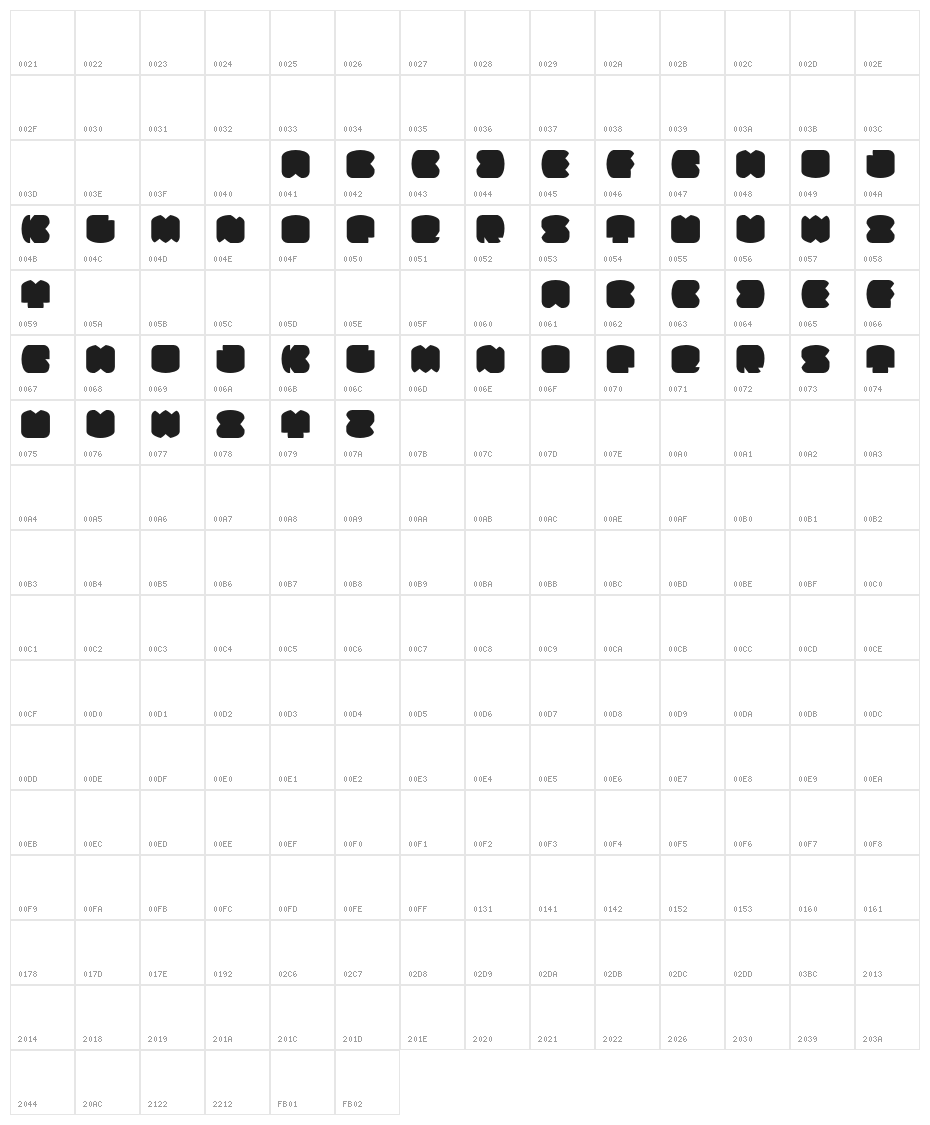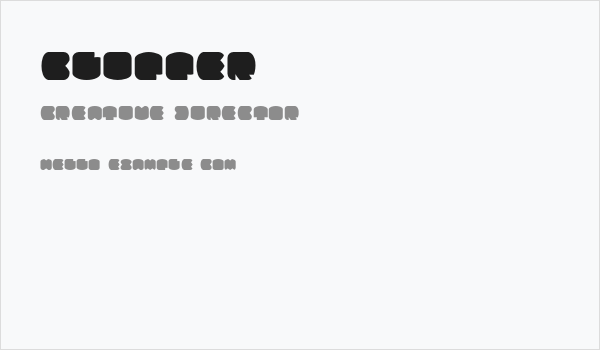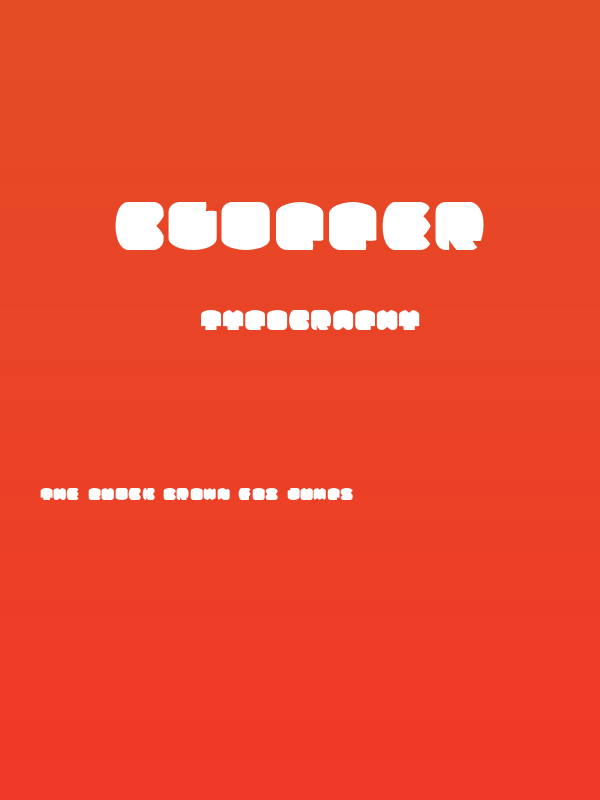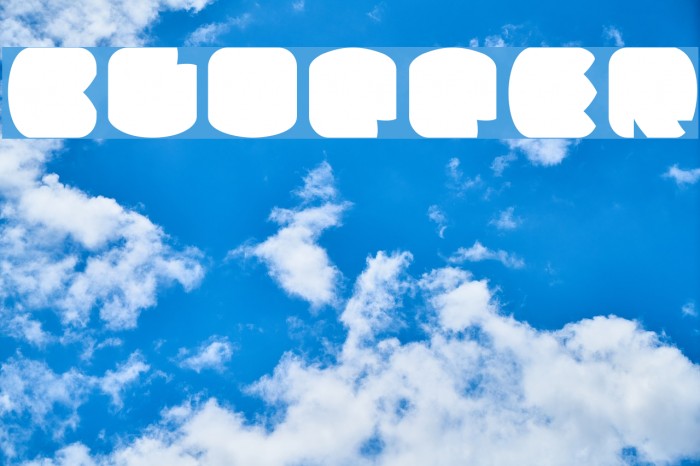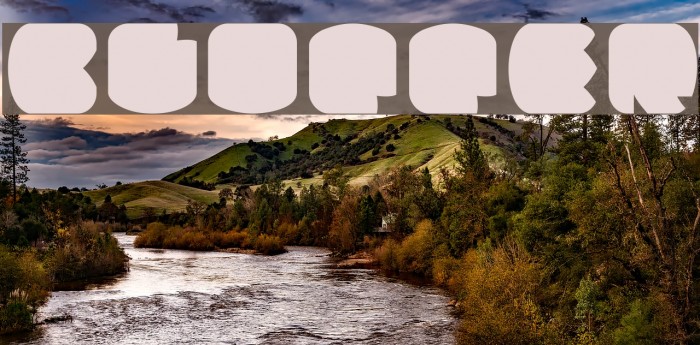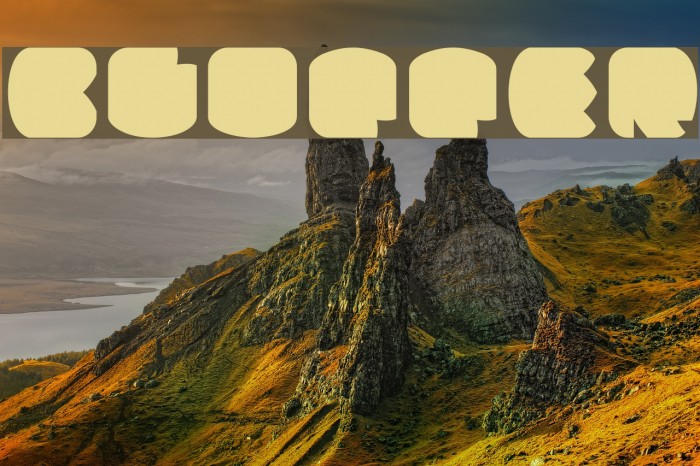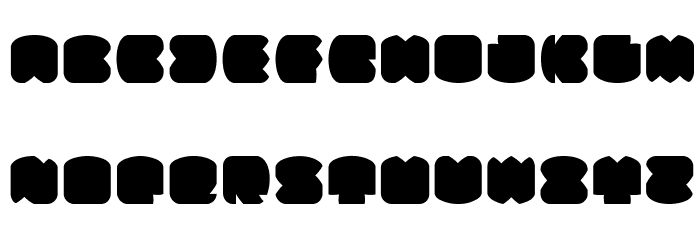
Clipper Font
Clipper Description
This font features bold, geometric shapes with a distinct, playful style. Each character is formed with thick, rounded edges and a consistent width, creating a cohesive and visually striking appearance. The letters are highly stylized, with unique cutouts and curves that give them a modern, artistic flair. The font's heavy weight and solid structure make it ideal for attention-grabbing designs. Its uniformity and boldness lend themselves well to creative projects where a strong visual impact is desired.